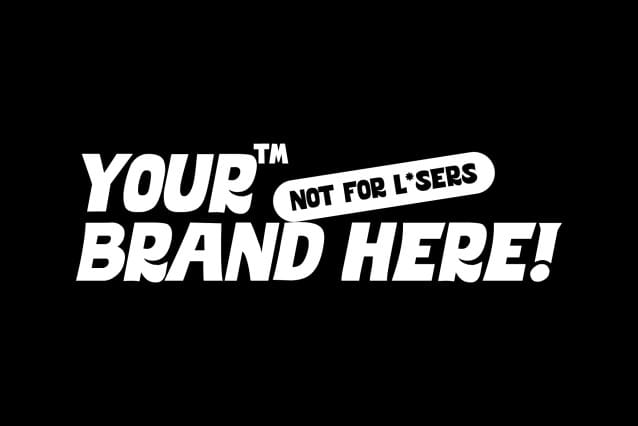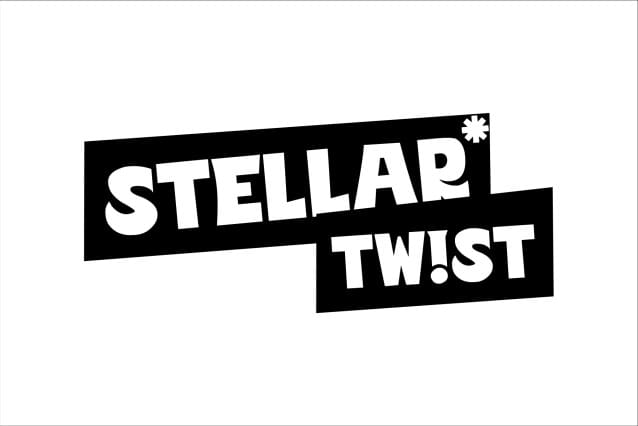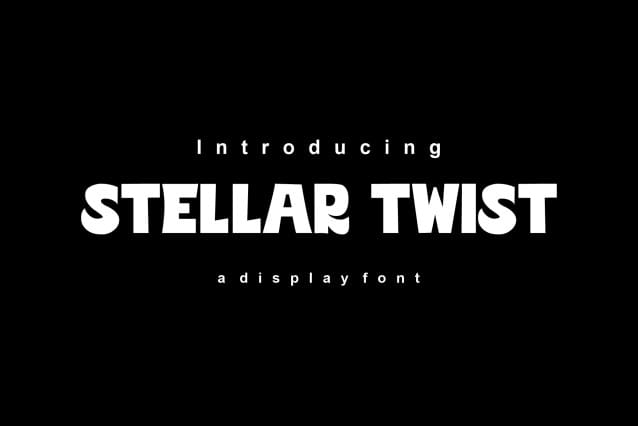
Stellar Twist Font
Stellar Twist is a bold and modern display font, characterized by playful and dynamic letterforms. The unique curves and creative twists make this font stand out, bringing a sense of fun and energy to any design. This font is ideal for use in branding, posters, headlines or any project that requires a strong and eye-catching visual impact. The versatility and contemporary style of this font makes it suitable for both digital and print media, enhancing the overall design with a distinctive and attractive look.